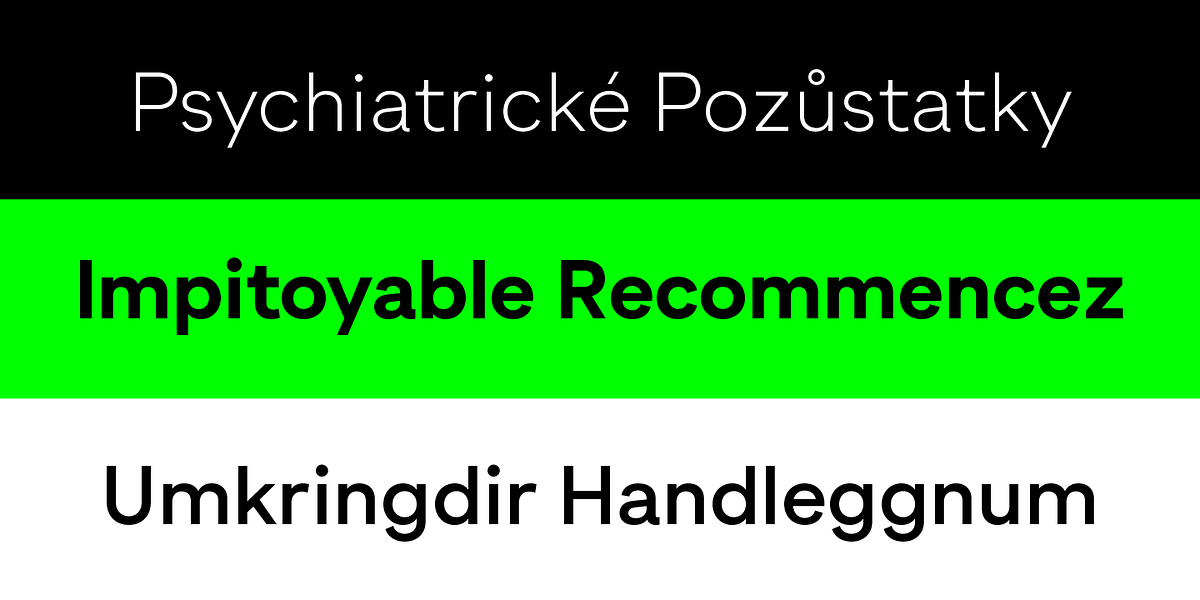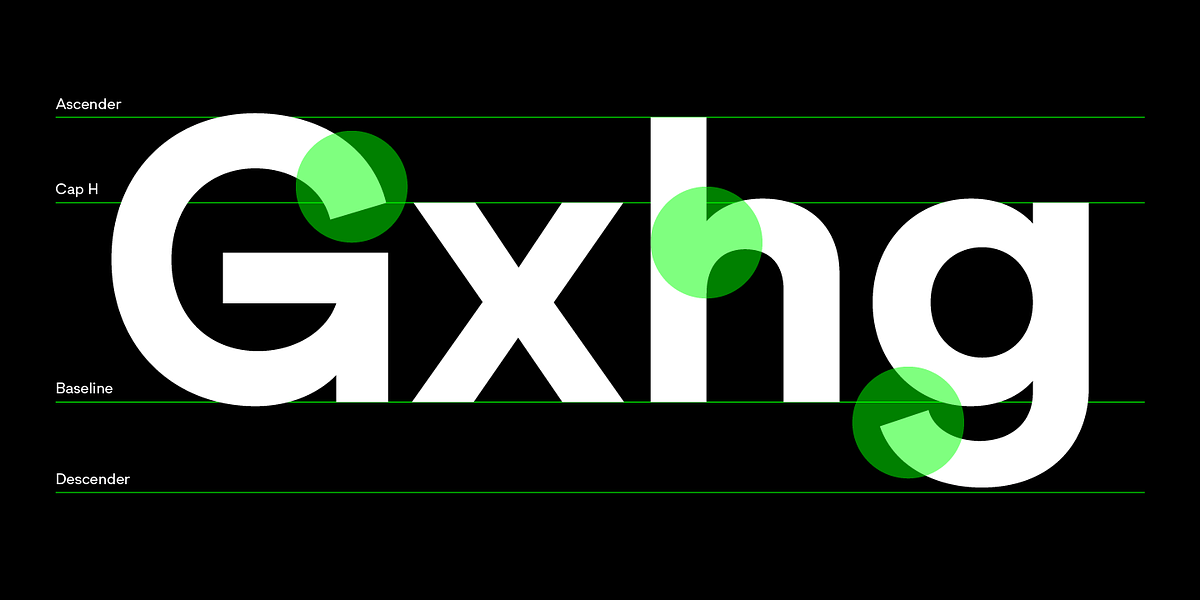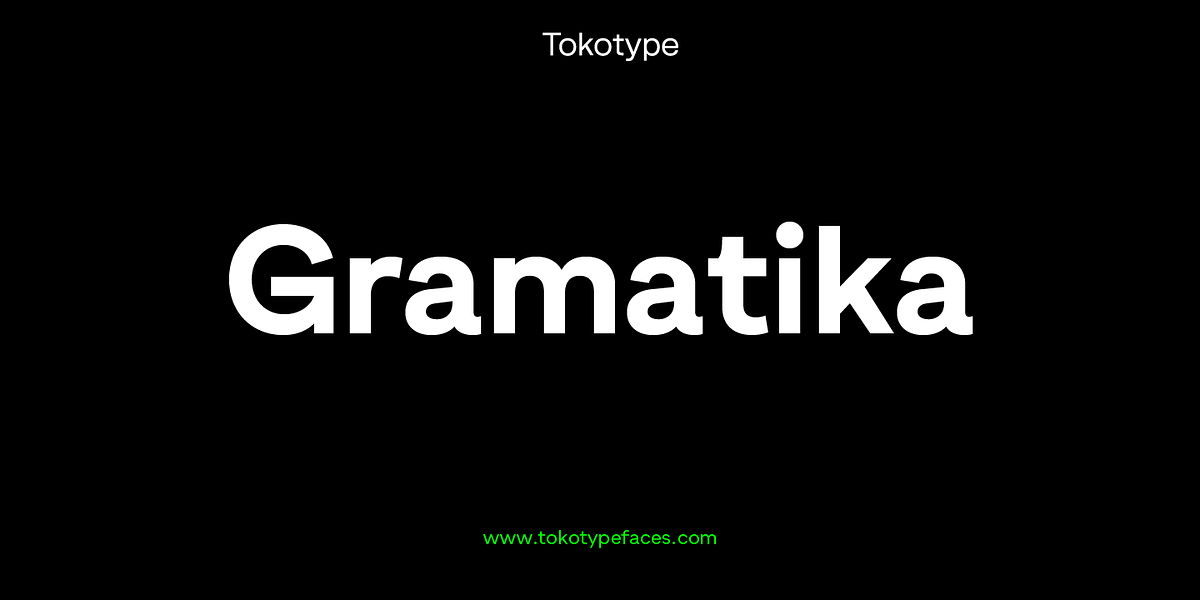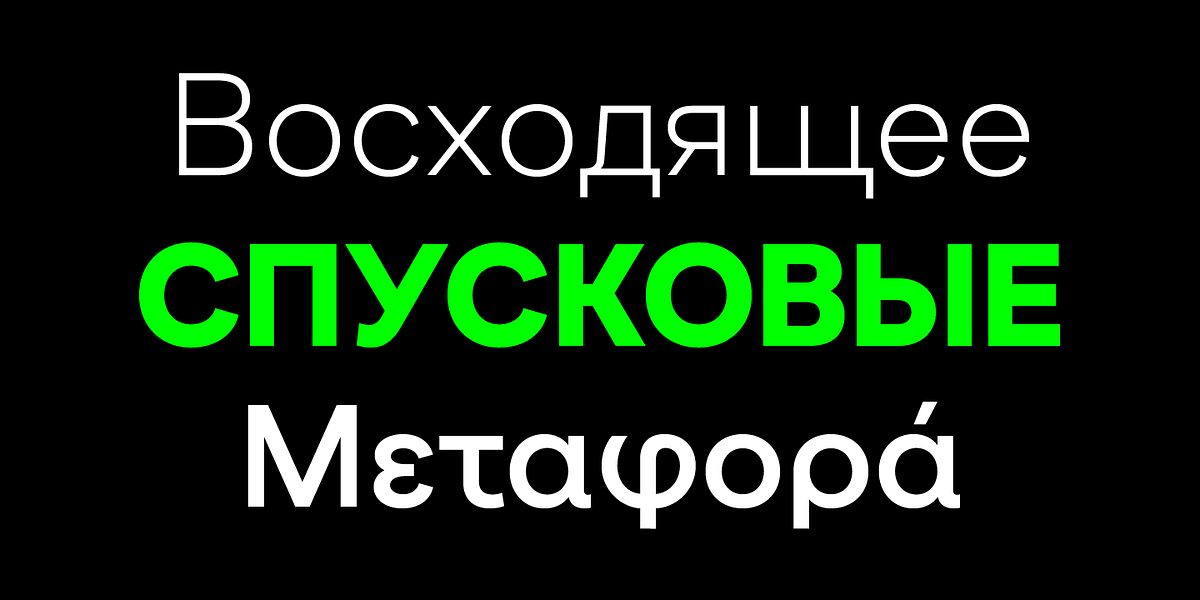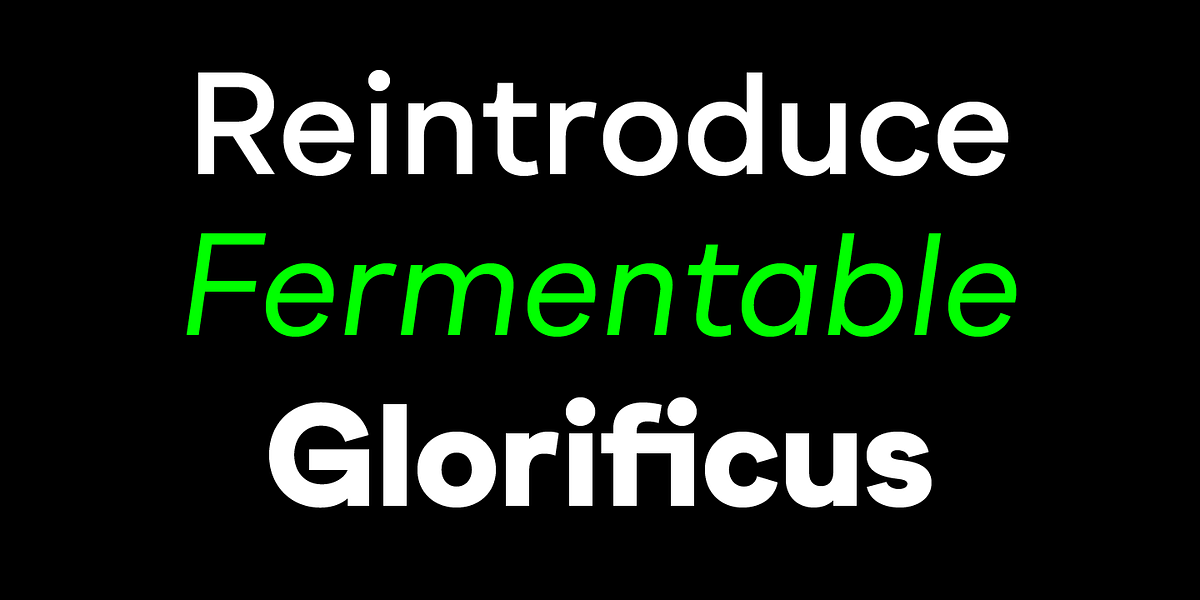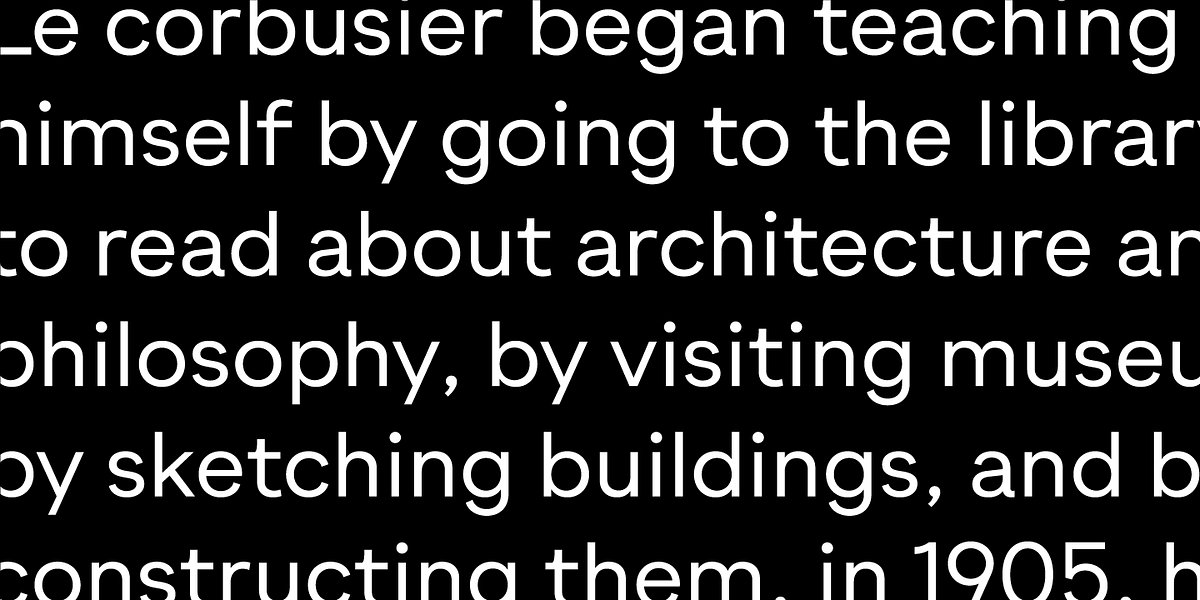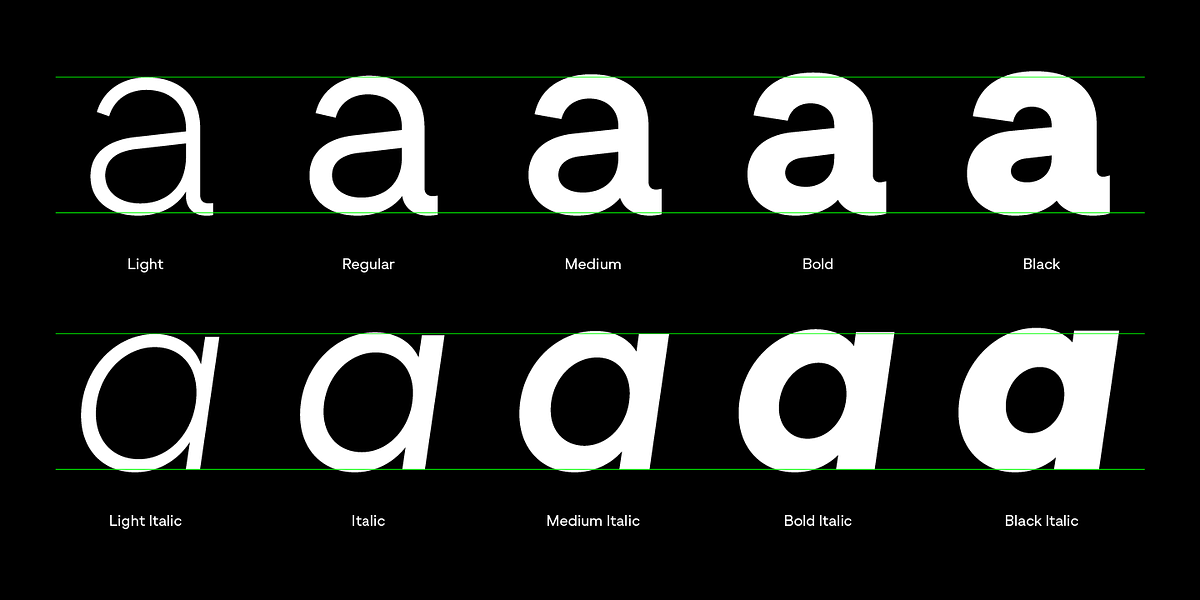
Gramatika
Gramatika is a contemporary sans-serif font characterized by its grotesque style and balanced design. It features a range of weights from light to black, making it suitable for both text and display applications. The font supports Latin Pro, Cyrillic, and Greek languages.